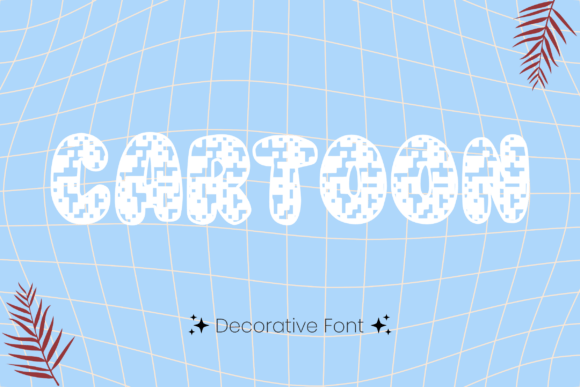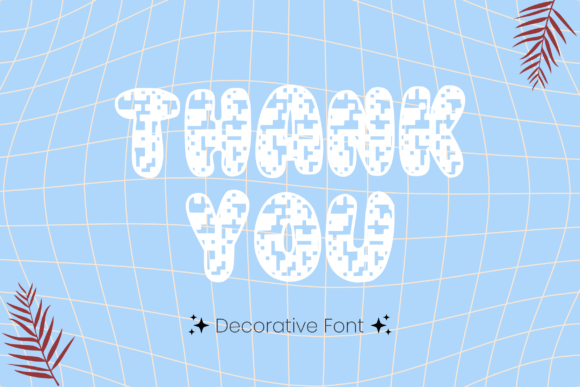
Unveiling the Charm of Cute Pixel Font: Elevate Your Designs with a Modern Twist
In the vast universe of digital typography, there’s a font that stands out for its irresistible charm and modern appeal: Cute Pixel. This adorable, ultra-modern pixelated cartoon-style font is designed to capture hearts with its unique dotted details, making each character delightfully recognizable. Whether you’re a designer, crafter, or simply a creative enthusiast, Cute Pixel is poised to become your go-to font for a wide array of projects.
The Allure of Cute Pixel
What sets Cute Pixel apart is its perfect blend of nostalgia and modernity. The pixelated style, reminiscent of early digital graphics, is infused with a fresh, contemporary vibe that’s hard to resist. The font’s design is meticulously crafted, with each letter and symbol boasting a distinctive dotted texture that adds a playful touch to any design.
Endless Applications for Cute Pixel
The versatility of Cute Pixel is one of its most compelling features. This font is not just limited to digital screens; it can be used across a variety of mediums and applications. Here are some of the many ways you can utilize Cute Pixel:
- Sublimation Designs: Add a cute and modern twist to your sublimation projects on tees, mugs, tote bags, and more. The pixelated style ensures that your designs stand out with a unique appeal.
- Animations: Bring your animations to life with Cute Pixel. Its playful and recognizable characters are perfect for creating engaging and lively animated content.
- Comic Headlines: If you’re into comic design or creating engaging headlines for any project, Cute Pixel offers a fresh and appealing aesthetic.
- Invitation Cards: Make your invitations stand out with a font that’s both cute and contemporary. Whether it’s a birthday party, a wedding, or any other celebration, Cute Pixel adds a touch of whimsy and charm.
- Personalized Greeting Cards: Craft personalized greeting cards for any occasion. The unique style of Cute Pixel ensures that your cards are memorable and heartfelt.
Why Choose Cute Pixel?
Choosing Cute Pixel for your projects comes with several benefits:
- Unique Aesthetic: The font’s pixelated style with dotted details offers a unique aesthetic that’s hard to find elsewhere.
- Versatility: Its versatility means you can use it across various projects, from digital designs to print materials.
- Easy to Read: Despite its playful style, Cute Pixel remains clear and easy to read, making it practical for a wide range of applications.
- Contemporary Appeal: The font’s modern appeal ensures that your designs feel current and fresh.
Cute Pixel is a game-changer for designers, crafters, and anyone looking to add a modern, playful twist to their projects. With its unique dotted details, adorable pixelated style, and ultra-modern appeal, this font is set to become a favorite in your typography arsenal. Express your gratitude in every pixel with Cute Pixel, and let this charming font be the channel for your creative flow. Explore the endless possibilities with Cute Pixel and take your designs to new heights.